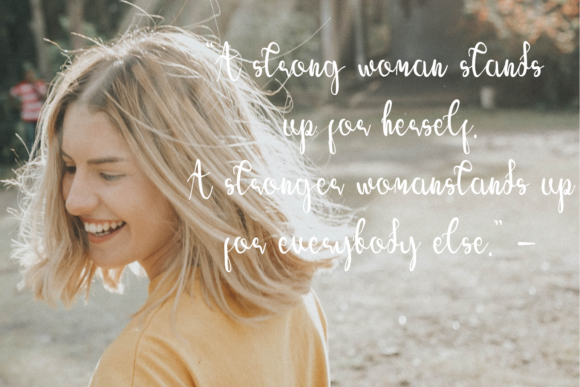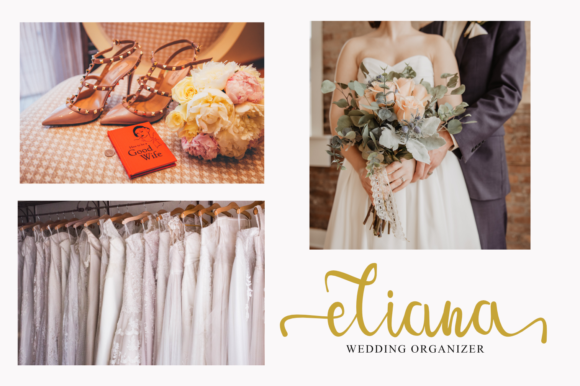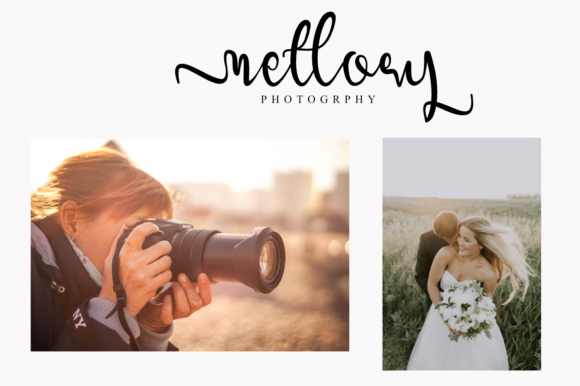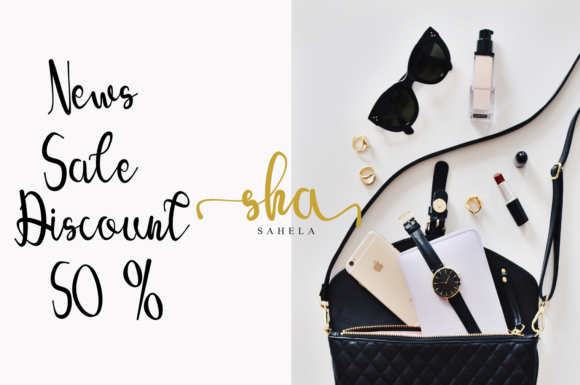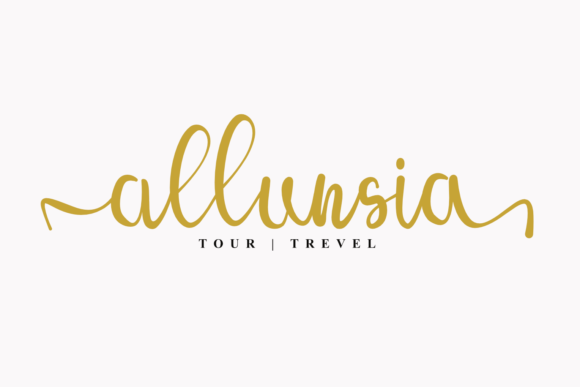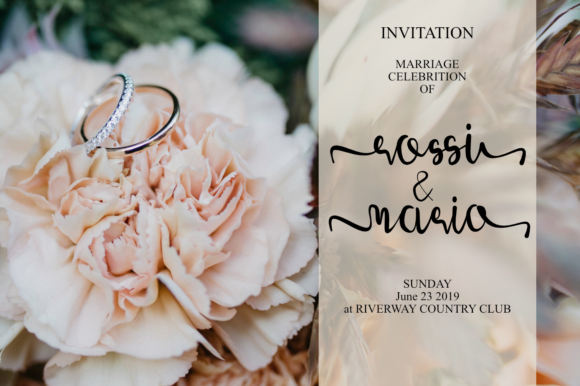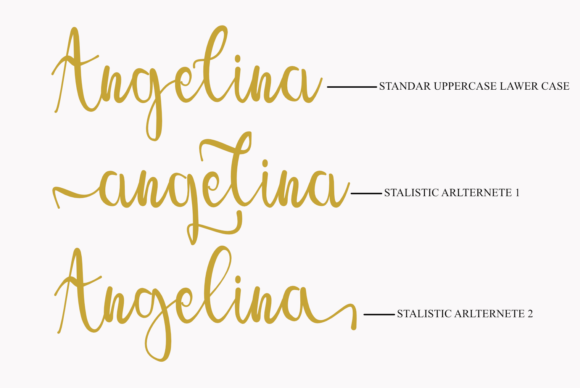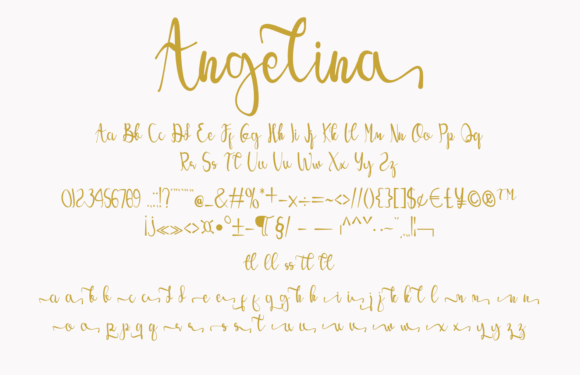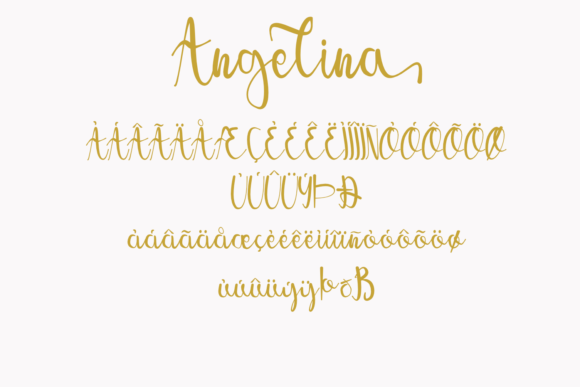
Angelina Font
About Angelina Font
Angelina is a bold and fun script font with a unique charm. Get inspired by its contemporary style, and turn any design project into a true standout!